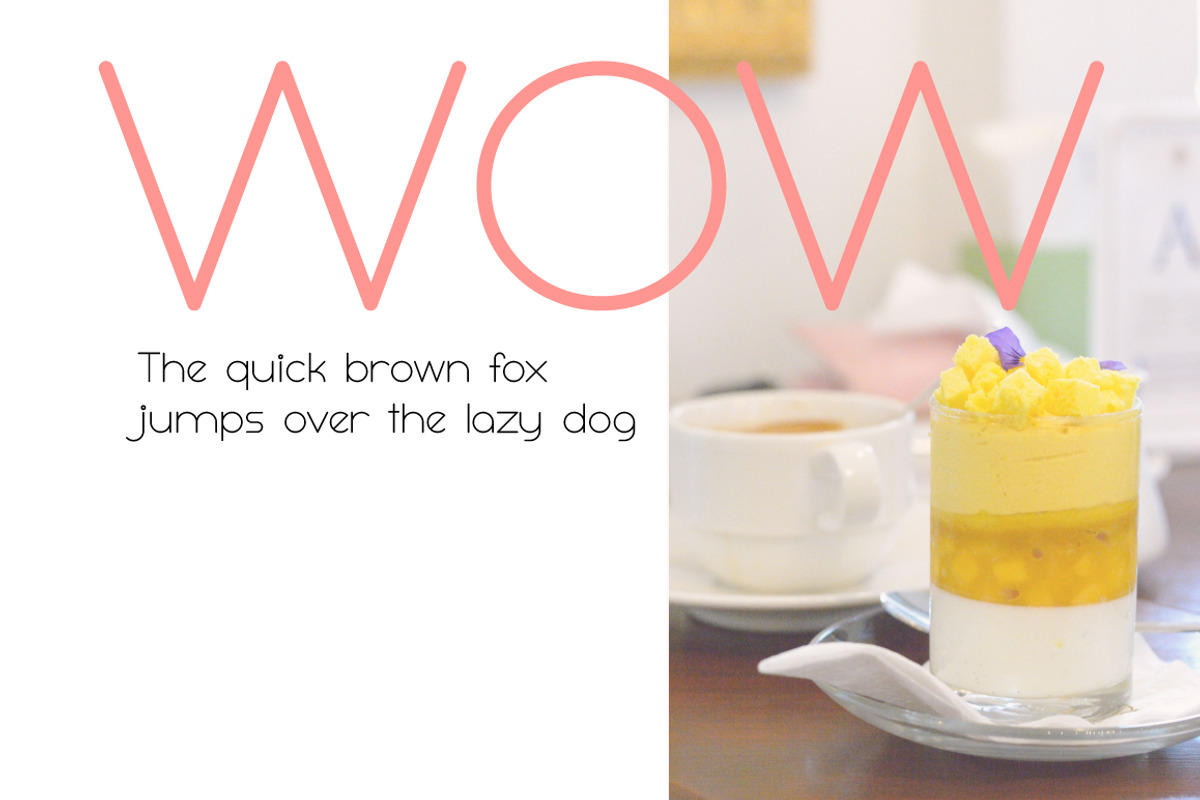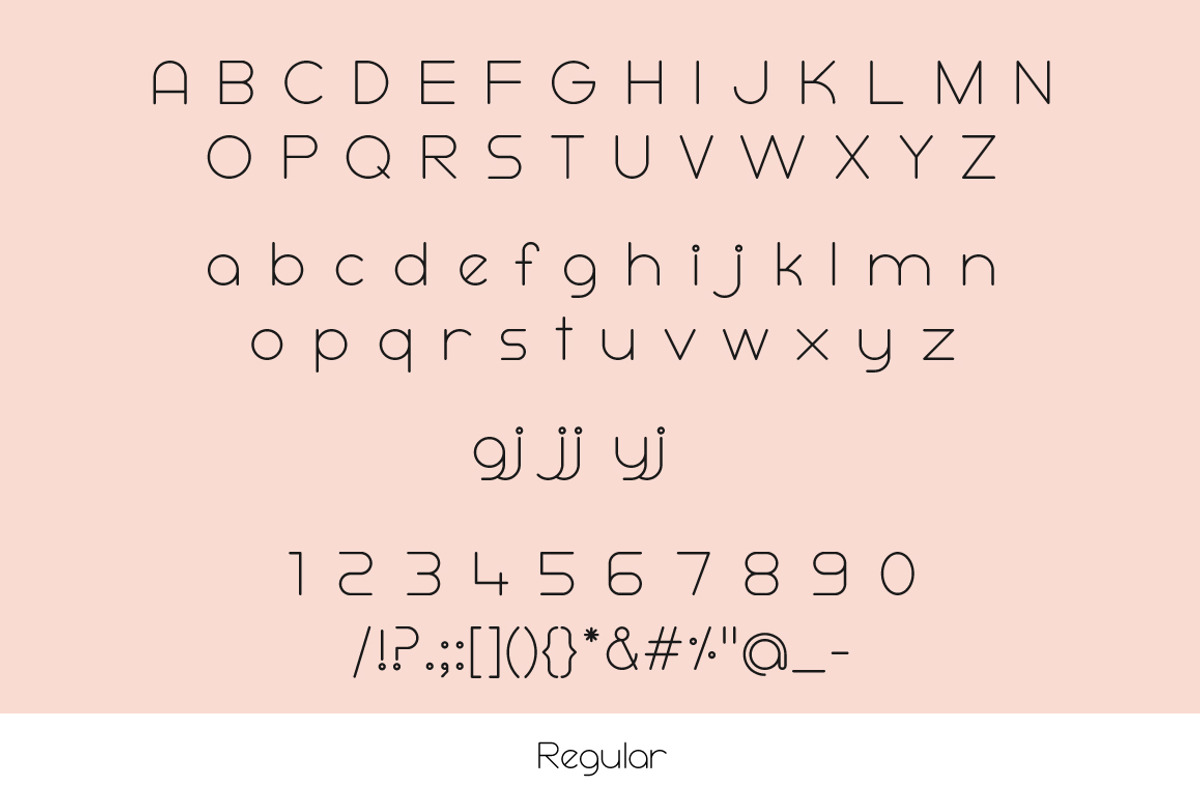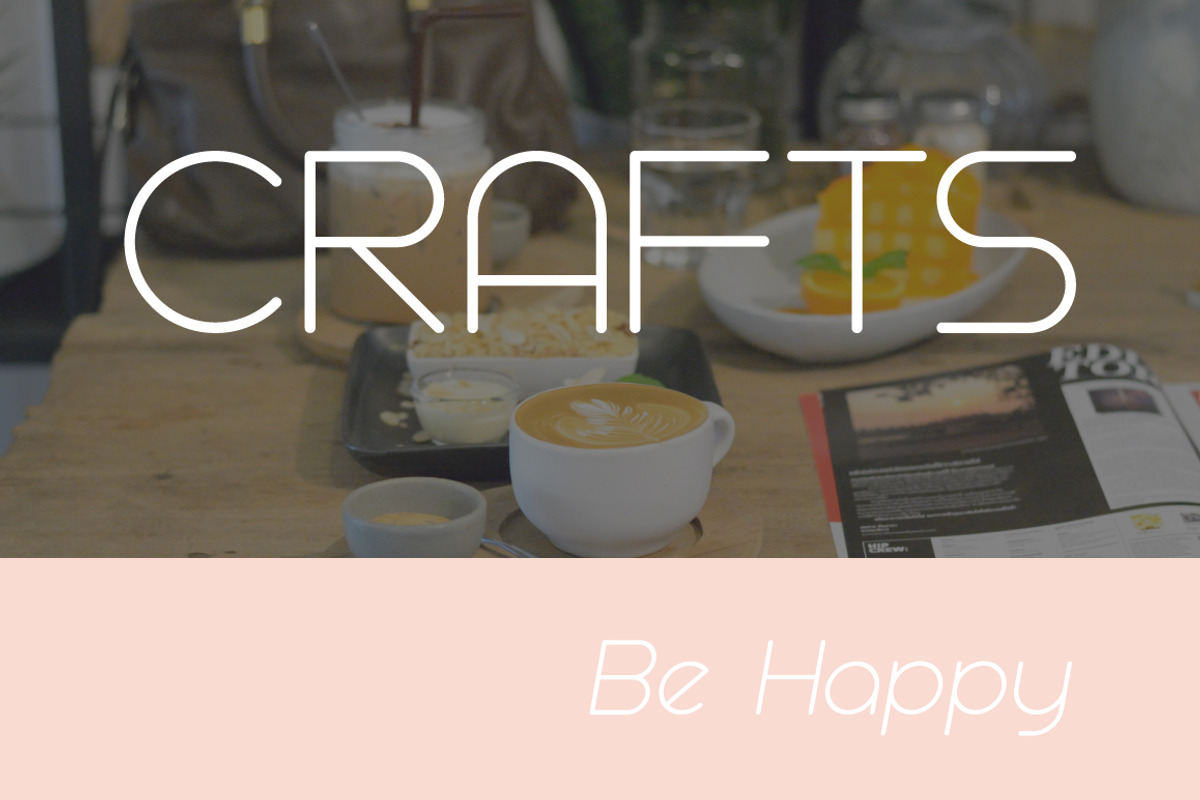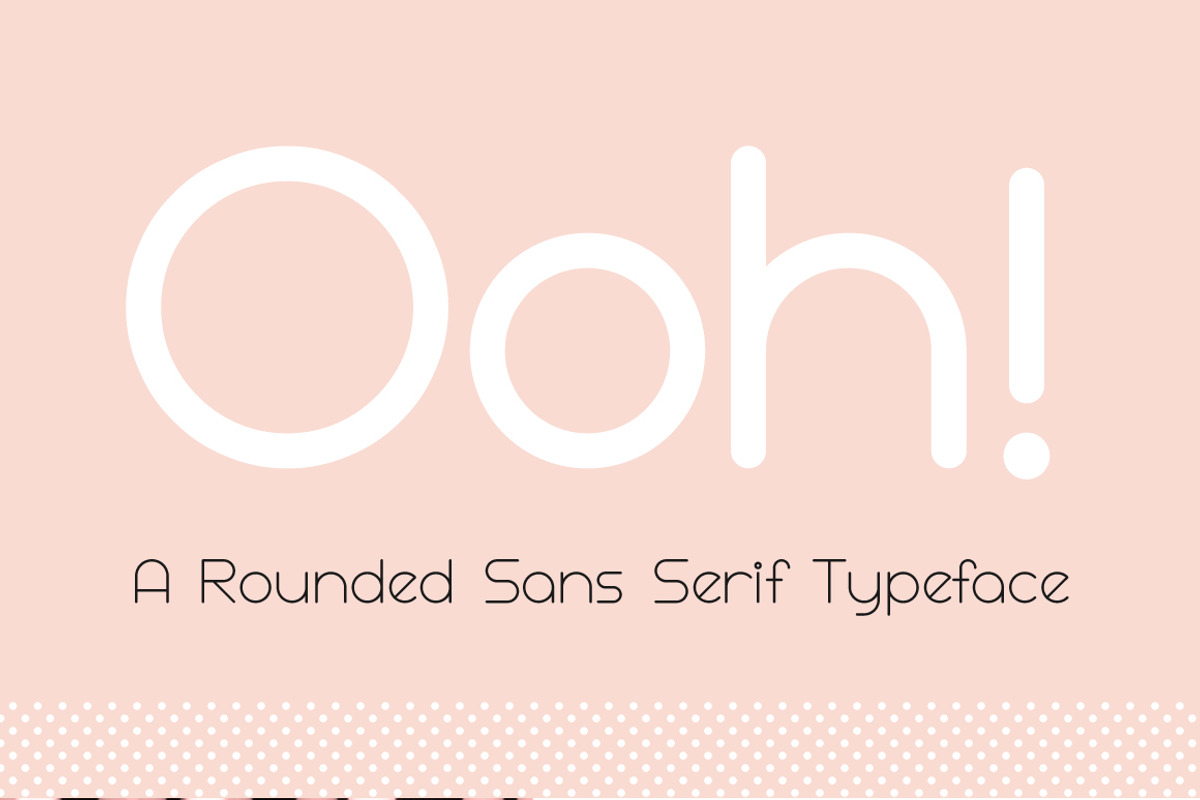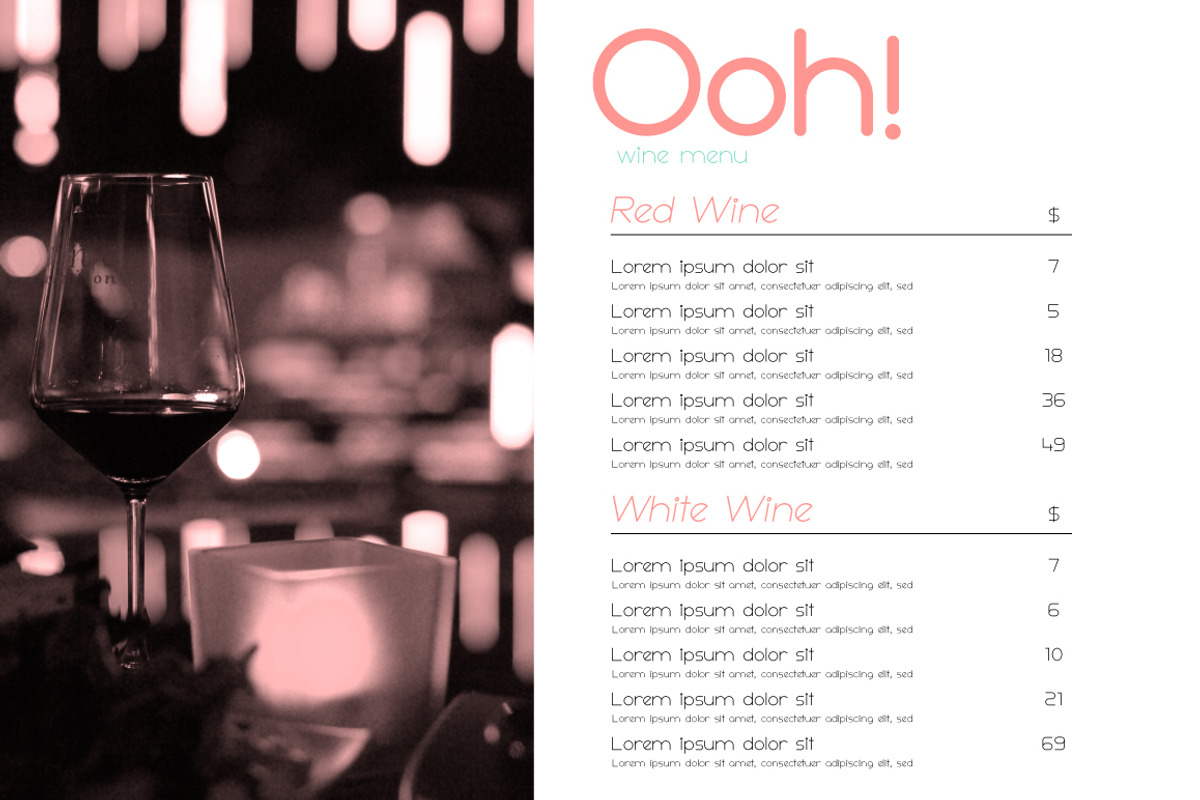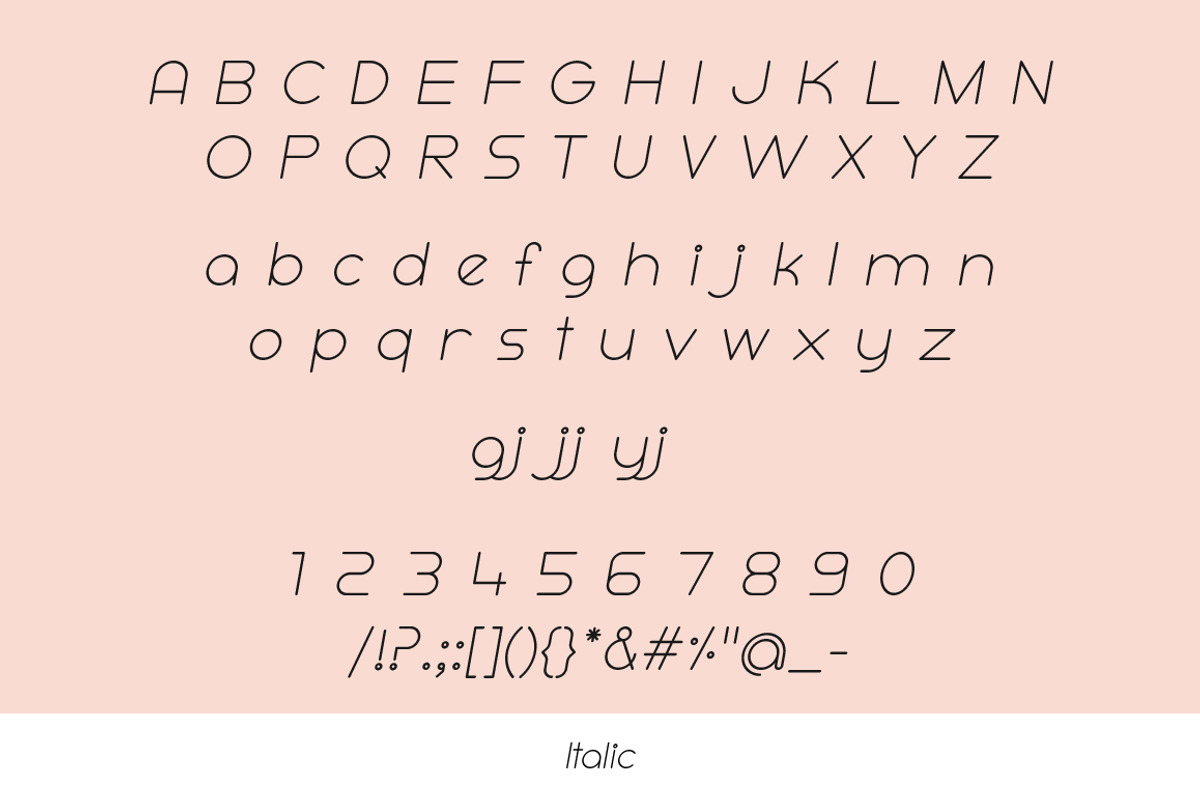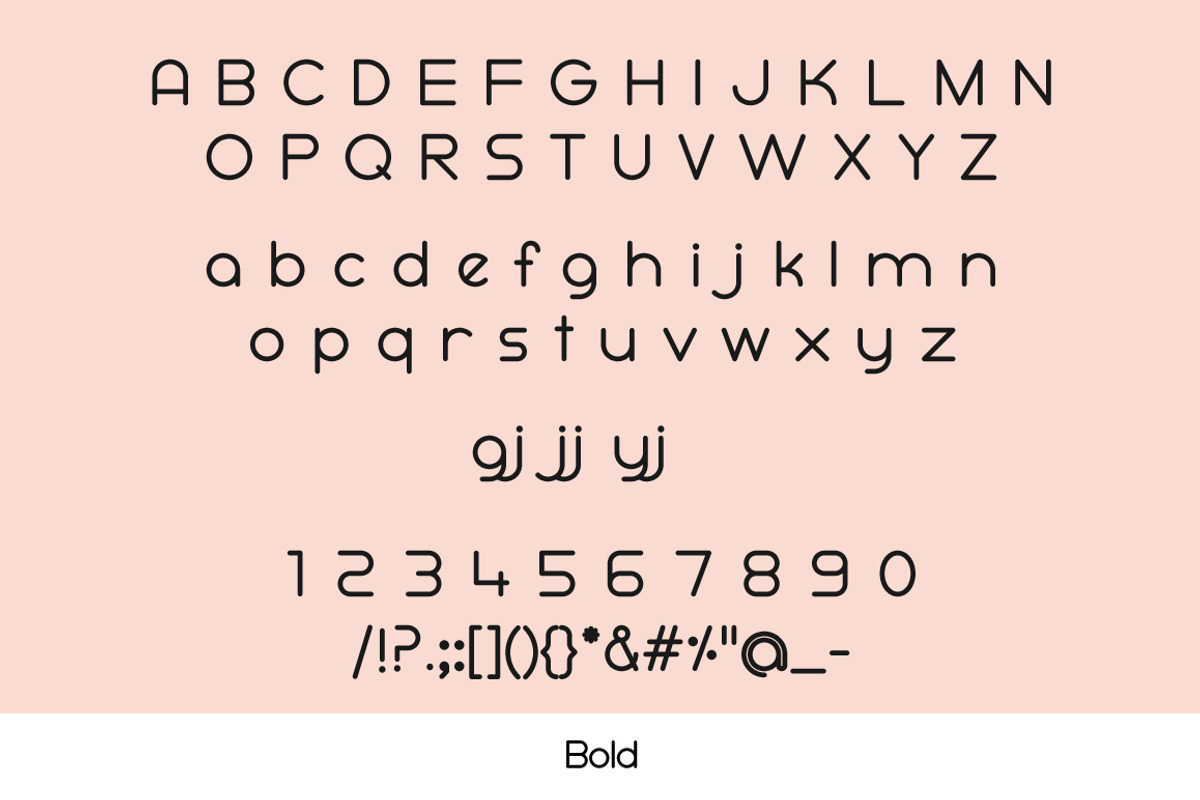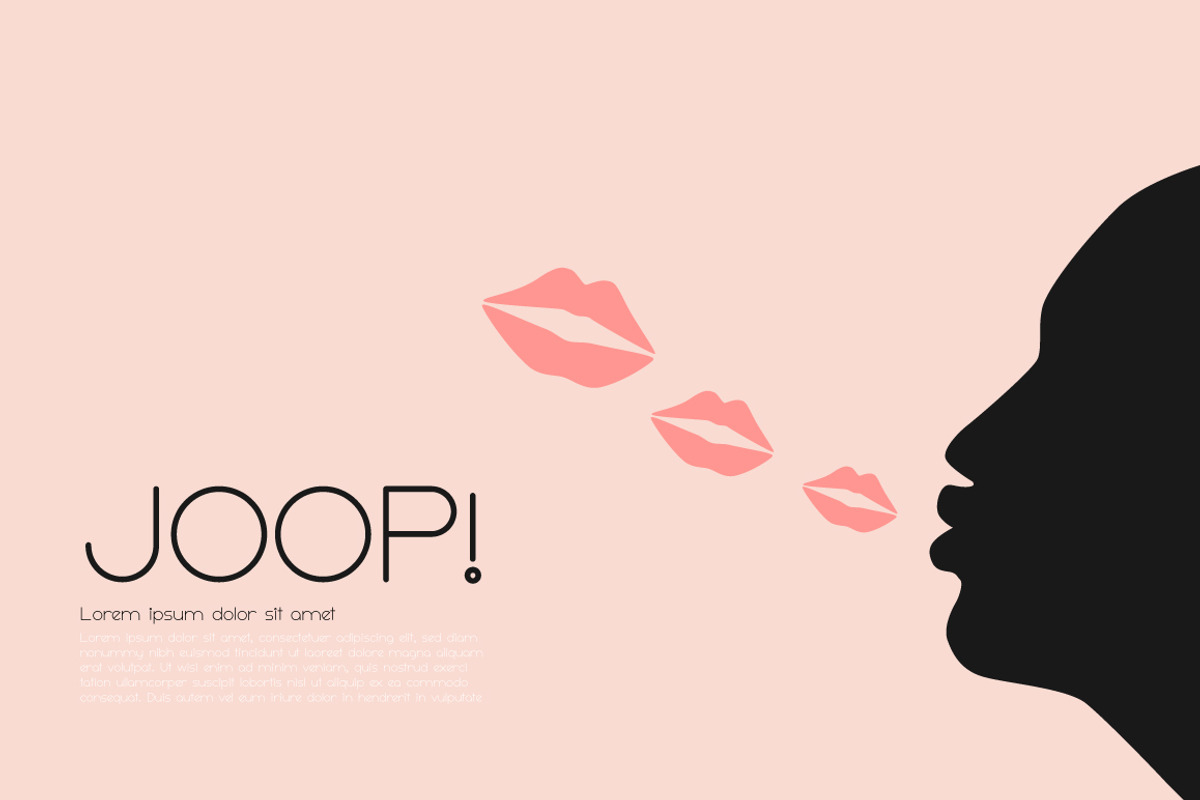
Ooh! Rounded Sans Serif Typeface
I would like to introduce Ooh! typeface, my first handcrafted font product on CreativeMarketI
Ooh! is a sans serif typeface with rounded caps, giving off a relaxed, sweet and clean vibe. Its design is based on circle and line geometric shapes. It can be used as a minimal-style header display or as a stylish text.
Ooh! comes in standard English characters (A-Z, a-z) with 3 ligatures, numbers (0-9) and 20 different punctuation marks. It includes 3 styles: Regular, Bold and Italic